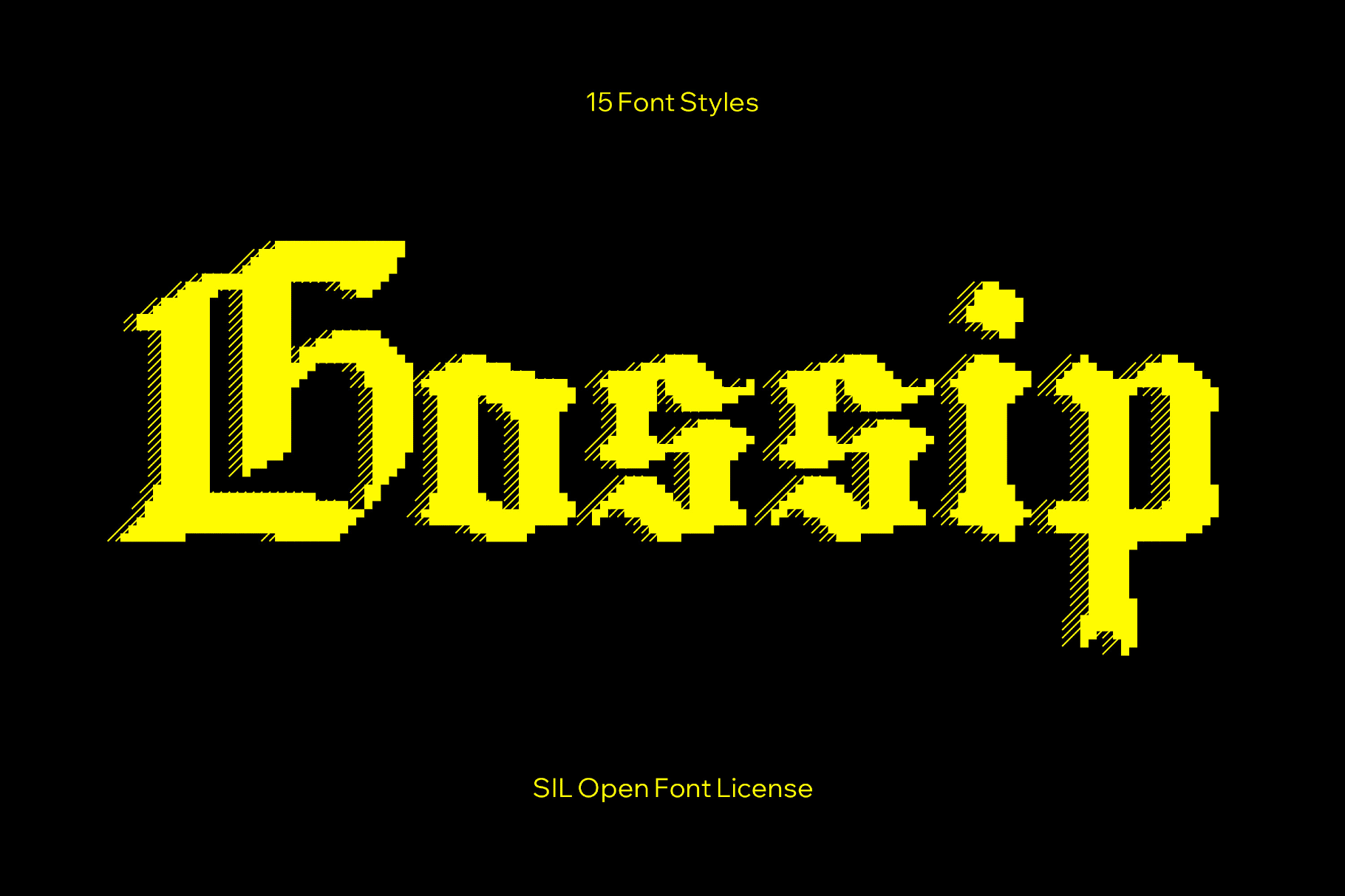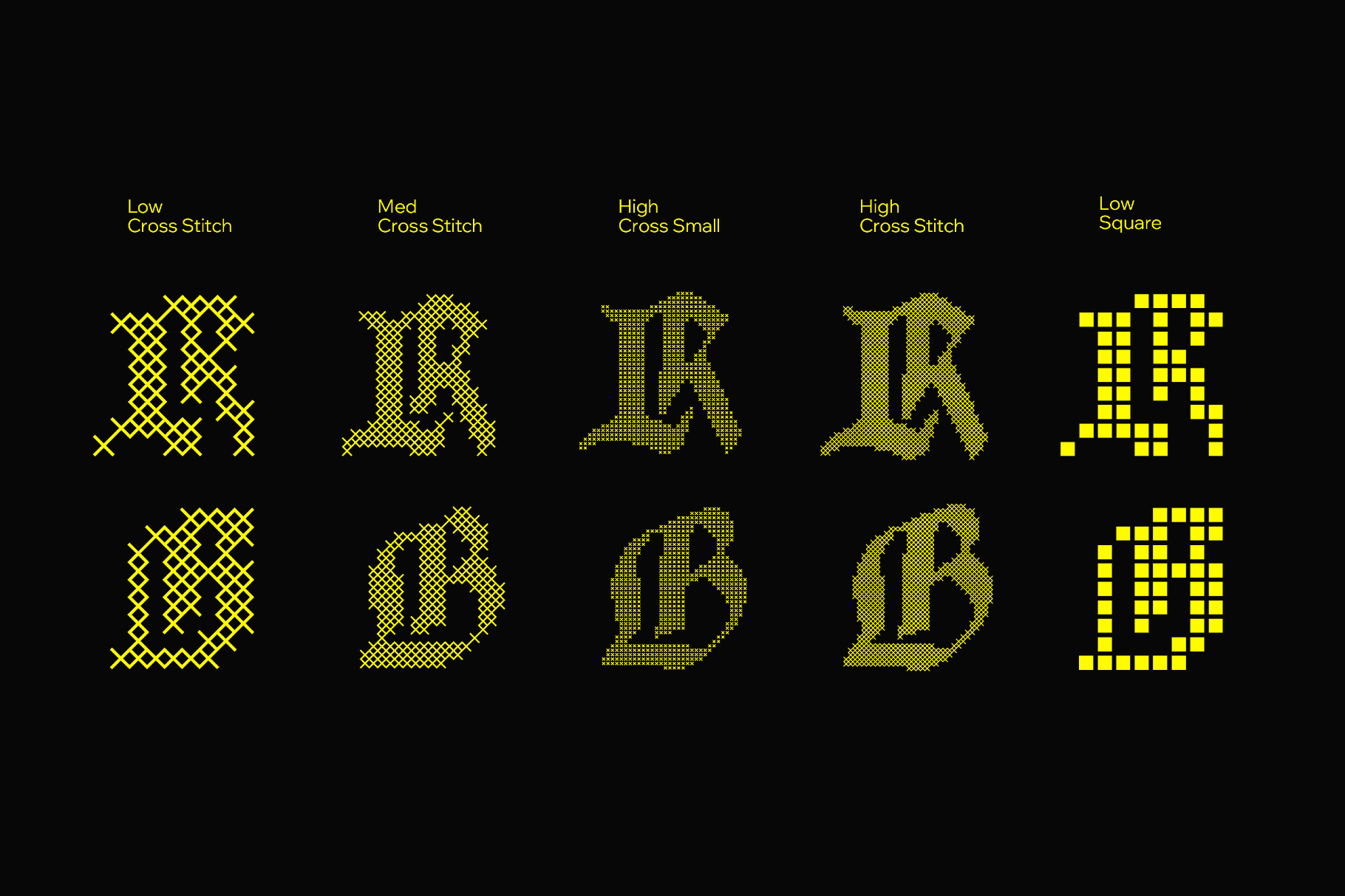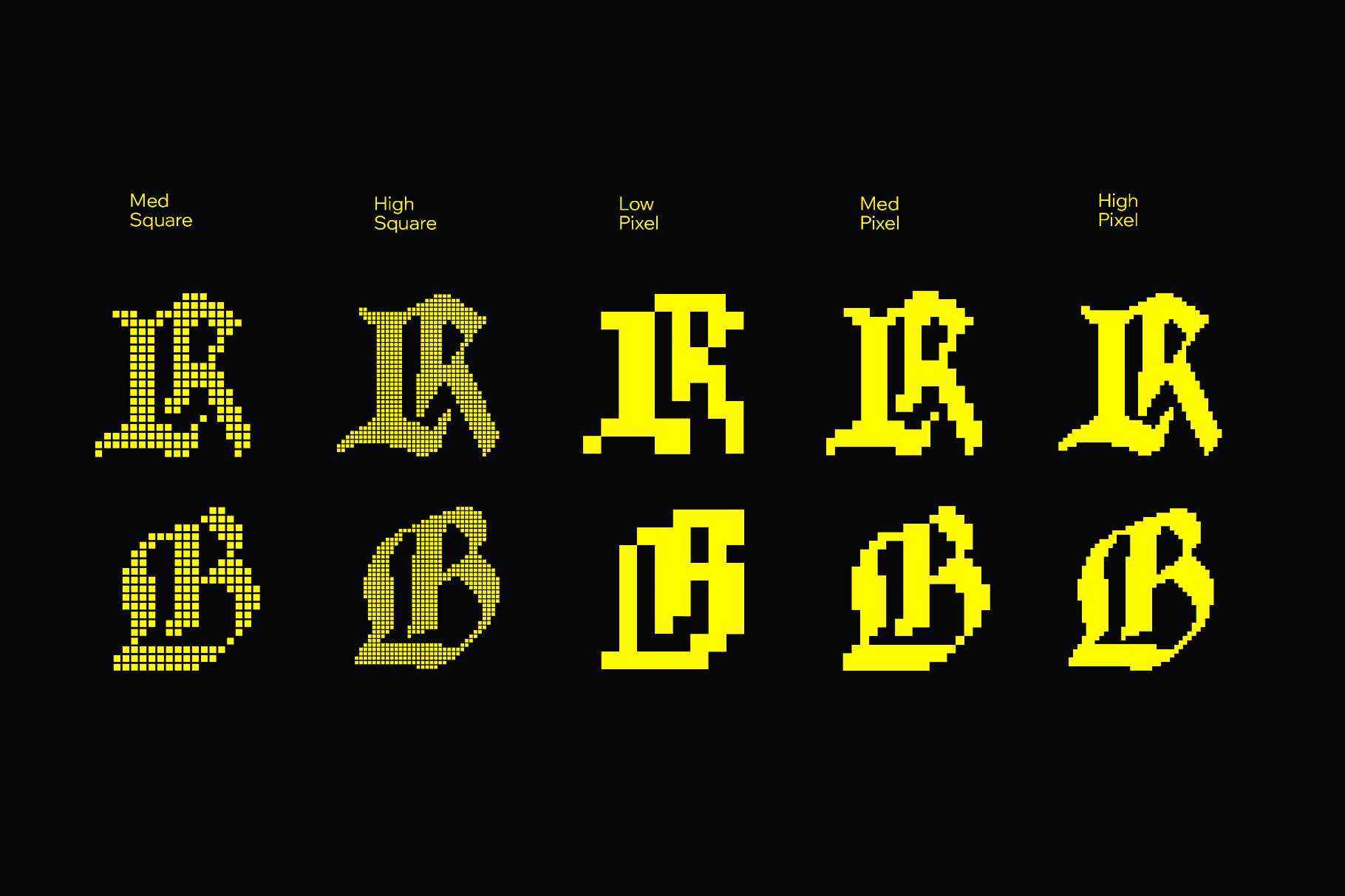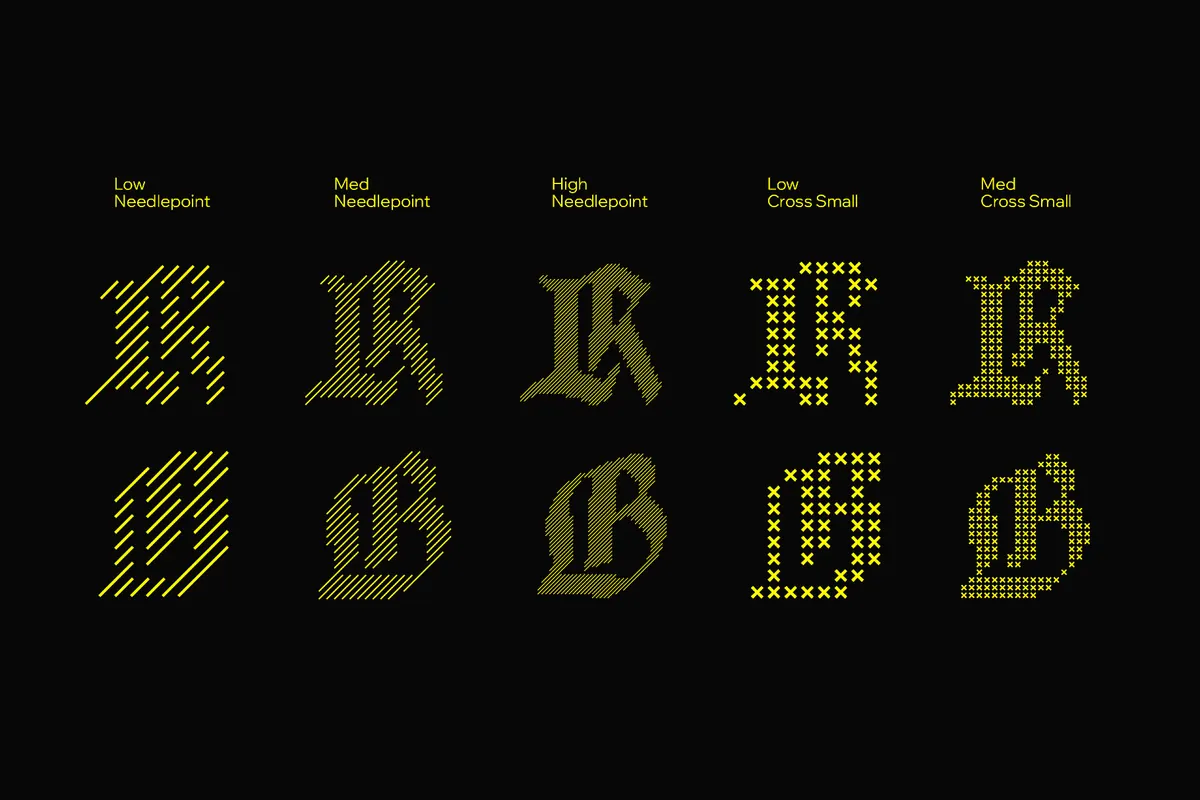
Gossip Gothic Pixel Font
Gossip is a blackletter font with characters in blocky strokes, tight verticals, and stepped diagonals that turn Textura-inspired letterforms into stitched grids. High, medium, and low variants shift the density, and give so many possibilities to use the font: for fantasy or gothic games, title cards for pixel RPGs, craft pattern covers, magazines, posters about digital folklore, album art, textile graphics, etc.
- Fifteen styles.
- Uppercase and lowercase Latin letters, numbers, punctuation, and symbols.